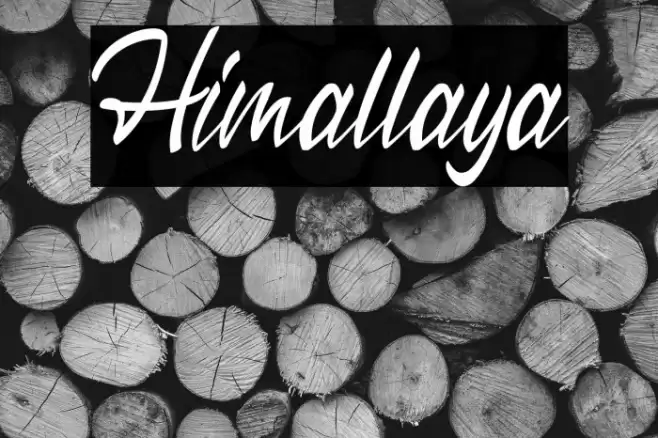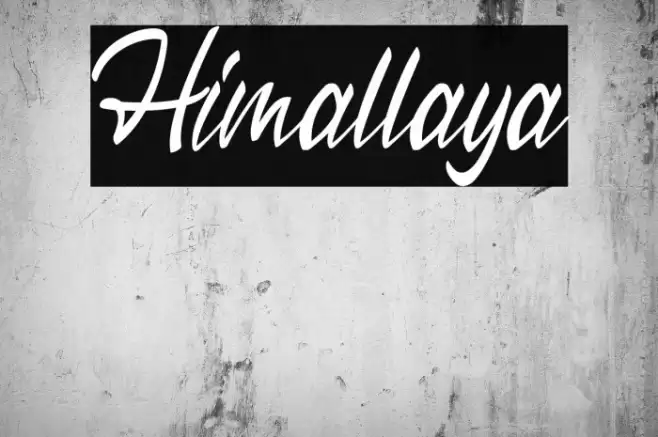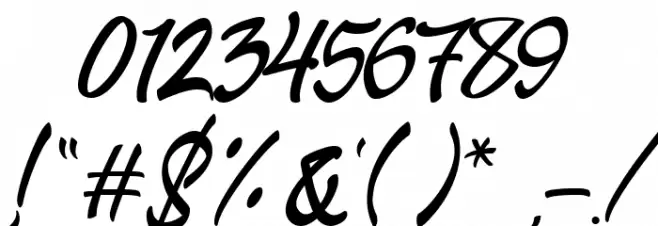
Himallaya Font
Himallaya Description
This font features a dynamic and fluid script style, characterized by its elegant and flowing letterforms. The strokes are smooth and connected, giving it a handwritten appearance that is both sophisticated and approachable. The uppercase letters are slightly more embellished, with graceful curves and loops, while the lowercase letters maintain a consistent rhythm and flow. The numerals and special characters are designed to complement the overall style, maintaining the same fluidity and elegance. This font is ideal for projects that require a personal touch, such as invitations, greeting cards, or branding materials.
A fluid and elegant script font with a handwritten style from Regular fonts.
- Proposed Projects: Ideal for wedding invitations, greeting cards, personal branding, and elegant packaging designs.
- Overall Style: Elegant, Handwritten
- Use Case: Logos, Invitations, Greeting Cards